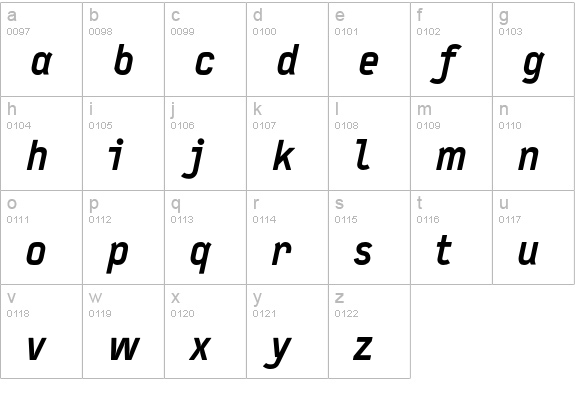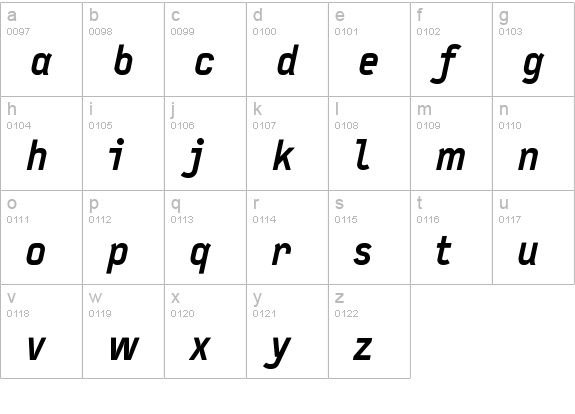
Typestar-BlackItalic Font Details
Typestar-BlackItalic is a bold, elegant and stylish font that exudes sophistication and class. Its sleek and slanted design adds a touch of modernity to any project, making it perfect for creating eye-catching headlines, logos, and branding materials. This font features a unique blend of boldness and grace, with its thick strokes and sharp angles creating a powerful and commanding presence. The italicized version of Typestar-Black adds an extra level of flair and personality, making it a versatile choice for both formal and informal designs. Typestar-BlackItalic is not only visually stunning but also highly legible, ensuring that your message is effectively communicated to your audience. Its carefully crafted letterforms maintain clarity even at smaller sizes, making it suitable for various print and digital applications. What makes Typestar-BlackItalic even more appealing is that it is available for free download at FontsMarket.com. This means you can access this exceptional font without any cost, making it a valuable asset for designers, artists, and creatives on a budget. With its timeless elegance, modern appeal, and accessibility, Typestar-BlackItalic is a font that will undoubtedly elevate your designs to new heights. Whether you're working on a professional project or simply want to add a touch of sophistication to your personal creations, this font is sure to impress. Don't miss out on the opportunity to download Typestar-BlackItalic for free at FontsMarket.com and unleash your creativity today.